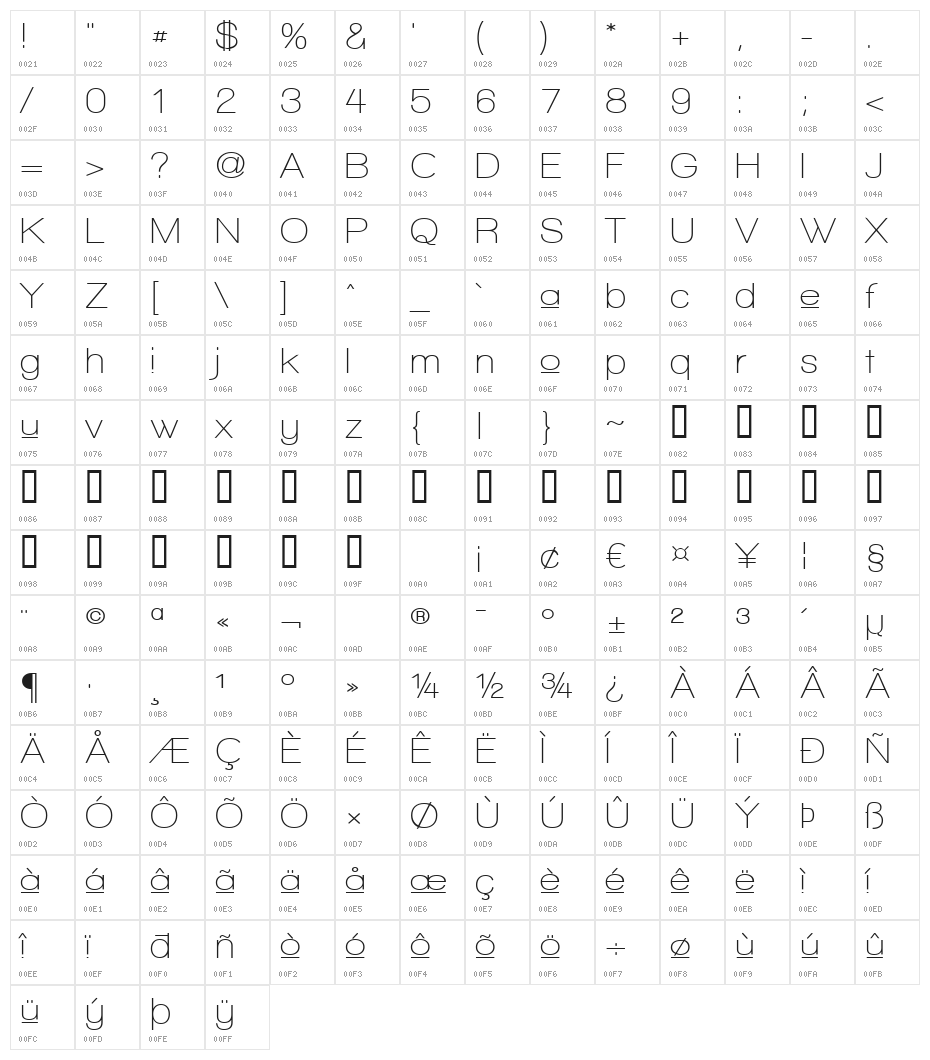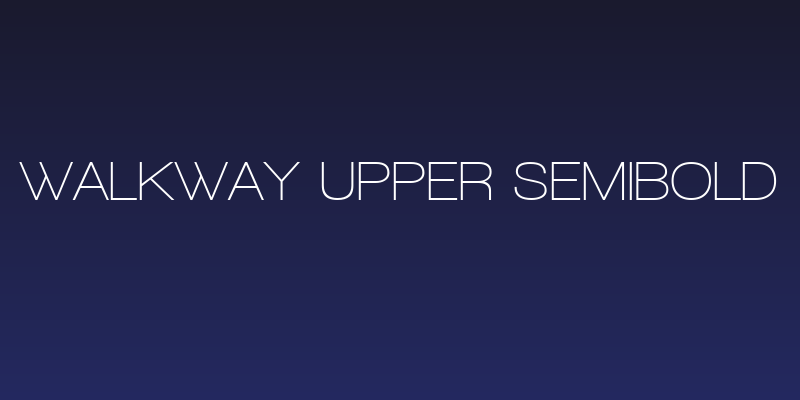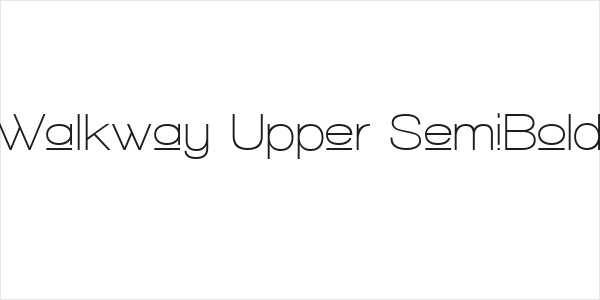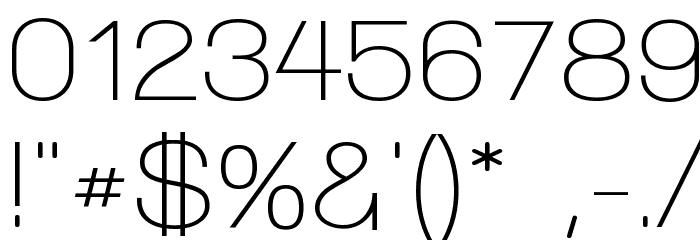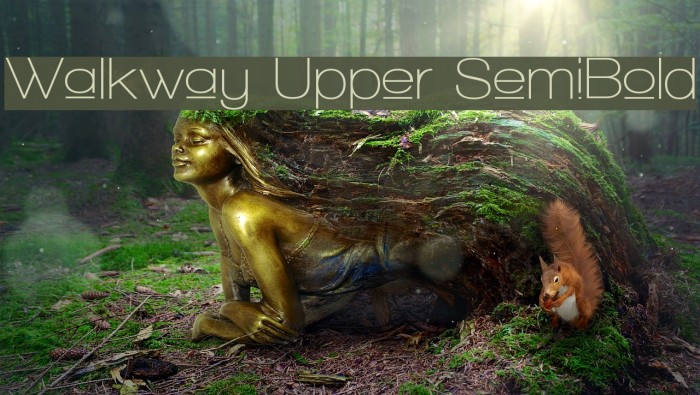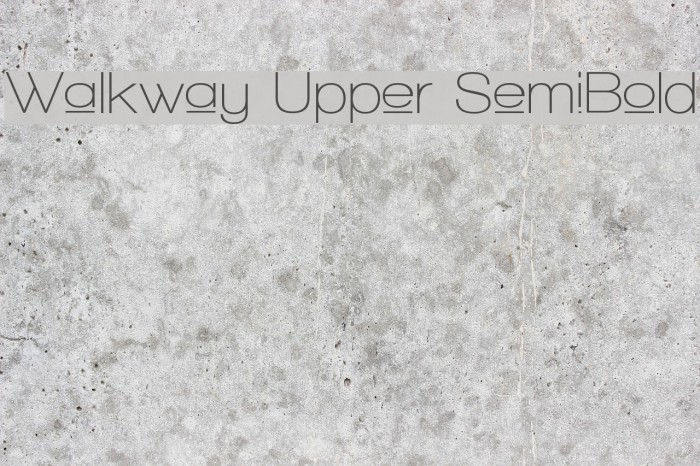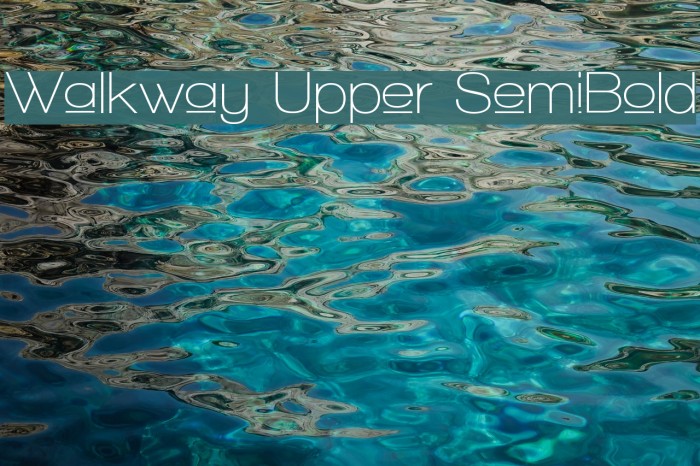
Walkway Upper SemiBold Font
Walkway Upper SemiBold Description
This font features a clean and modern sans-serif style with a semi-bold weight. The characters are sleek and geometric, offering a contemporary aesthetic that is both professional and approachable. The uppercase and lowercase letters maintain a consistent height and width, providing a harmonious visual flow. The numerals are clear and distinct, ensuring readability across various applications. Special characters are designed with the same attention to detail, making them suitable for a wide range of uses. The overall design is minimalistic, emphasizing simplicity and elegance.
| Use Case | Headlines, Body text, Logos |
| Proposed Projects | Ideal for branding, digital interfaces, advertising, and editorial design. |